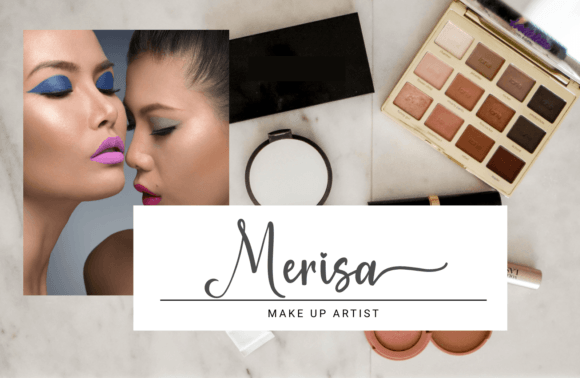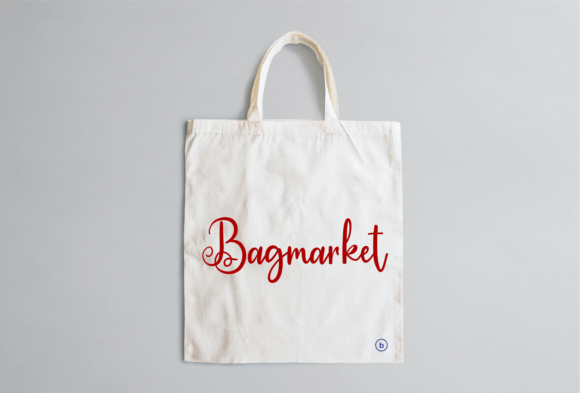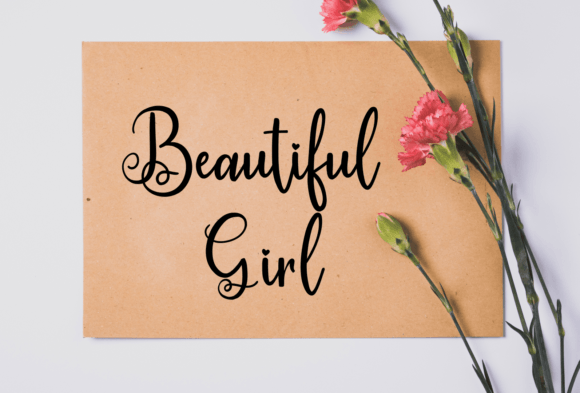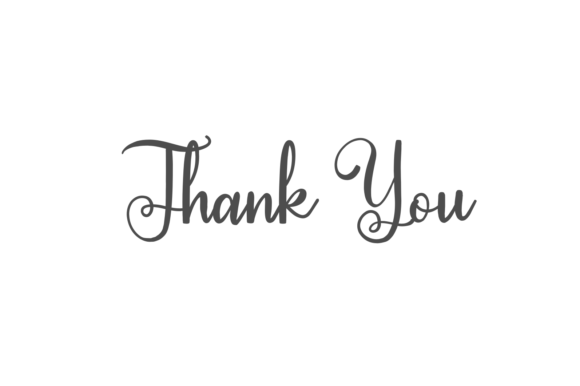
Elinda Font
About Elinda Font
“Elinda” is a delightful and whimsical handwritten font that effortlessly combines sweetness, flow, and a thin stroke to create a luxurious aesthetic. The characters of “Elinda” appear to dance along the baseline, infusing a sense of playfulness and charm into any design project.
The font’s thin and flowing nature suggests that it can add an elegant touch to various creative endeavors. Whether you’re working on invitations, branding, or other design projects, “Elinda” seems poised to bring a touch of luxury and sophistication.
The PUA encoding of “Elinda” is a valuable feature, allowing for easy access to the diverse set of glyphs and swashes without the need for special design software. This enhances the font’s accessibility and flexibility, making it convenient for designers to explore and incorporate its unique elements.
Consider incorporating “Elinda” into your design toolkit for projects where a sweet and whimsical touch is desired. Whether it’s a luxury brand logo or charming greeting cards, “Elinda” appears ready to contribute to a visually enchanting and memorable design.